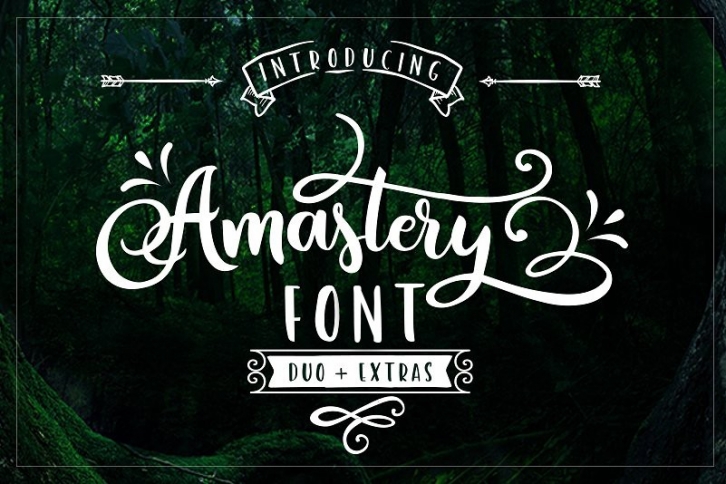
Amastery Duo + Extras is a trendy and unique font with an authentic style. It was designed by BlackCatsMedia and it's a great choice for creative people who need such a font. It was released on June 28, 2017 and the file size is 19.67 MB. Amastery Duo + Extras will add an organic vibe to any design idea!